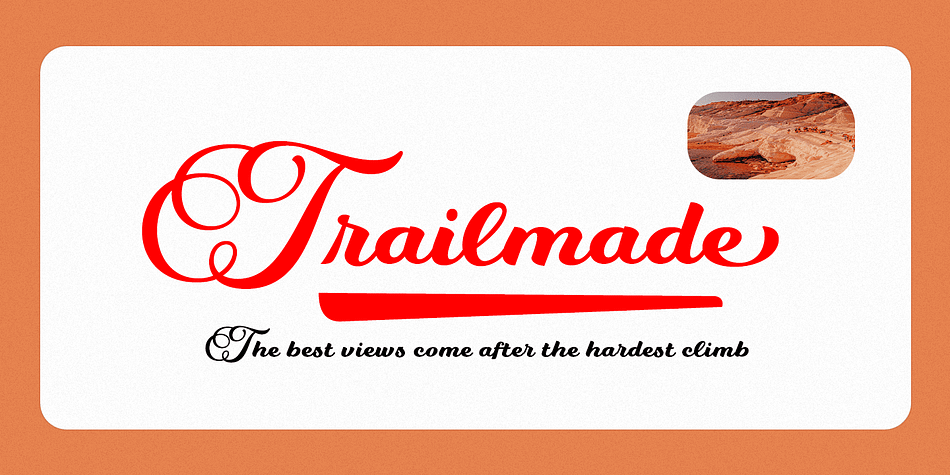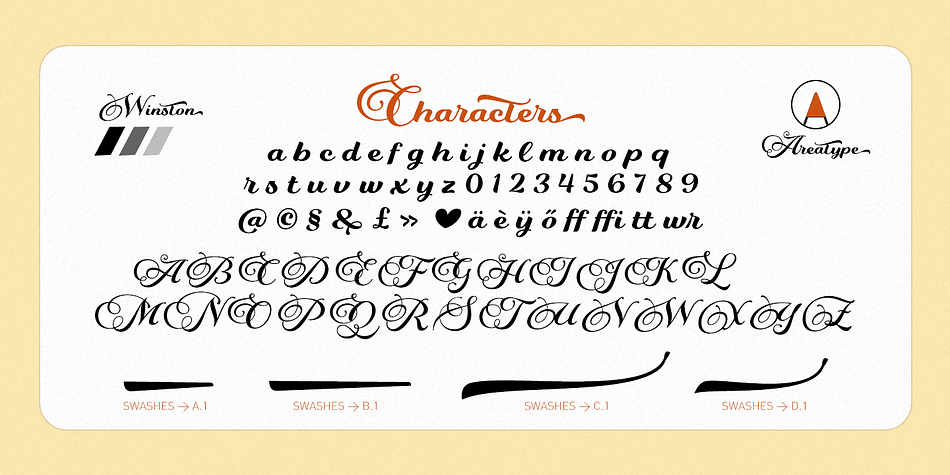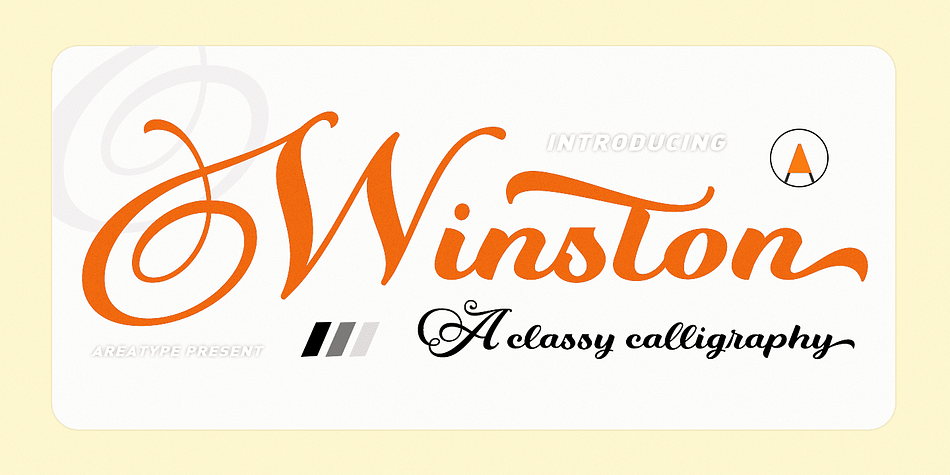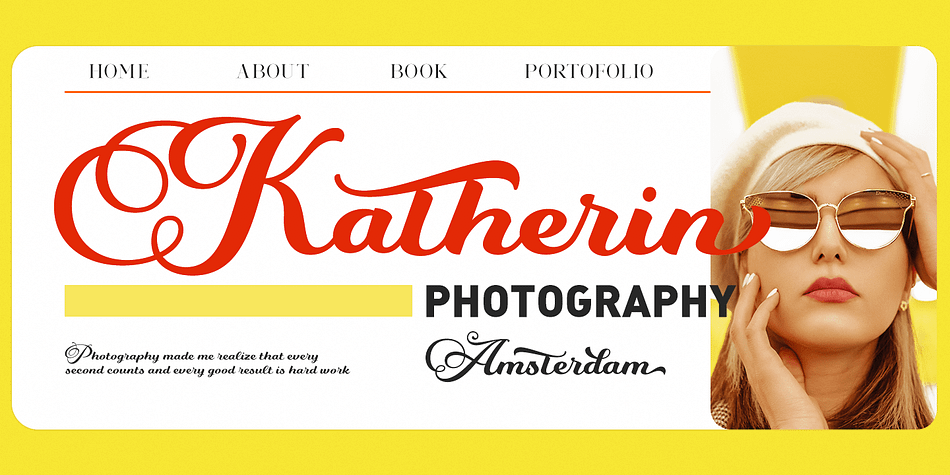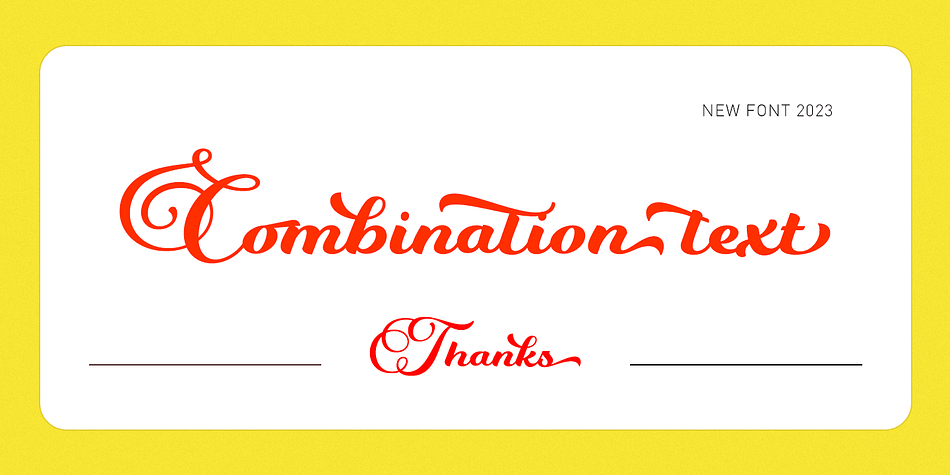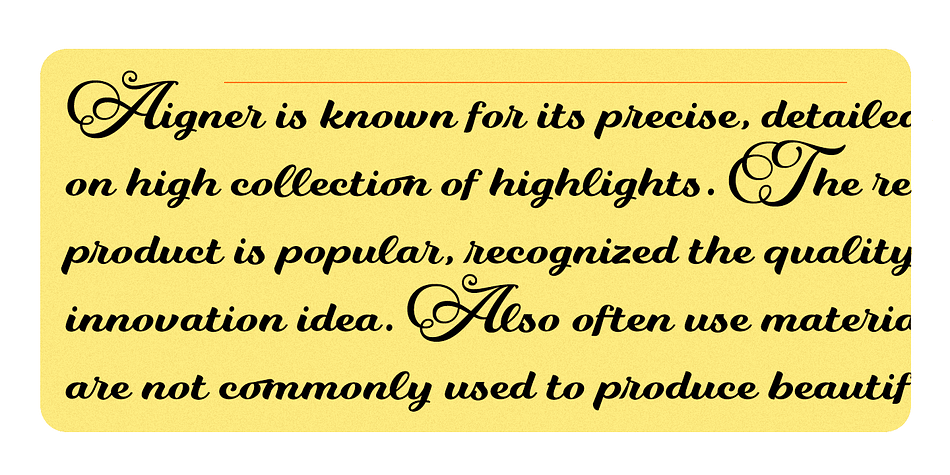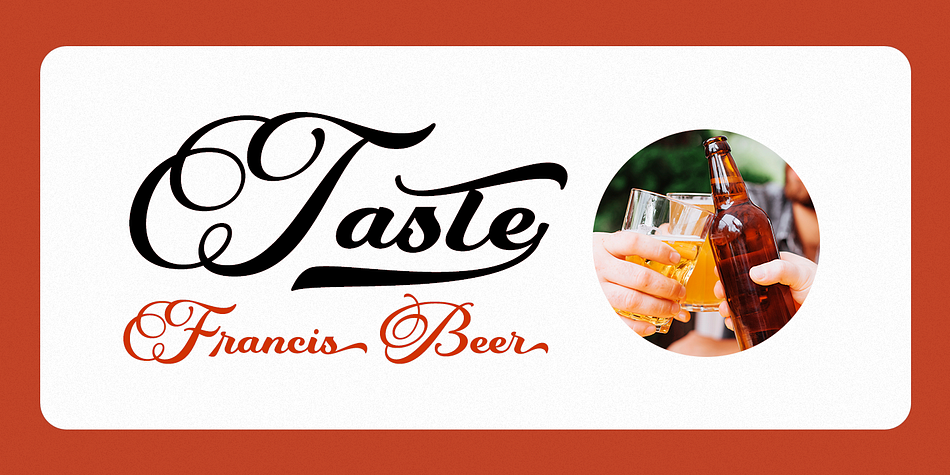
Winston
Winston is a brush script and script font family published by Area Type Studio.
Welcome to Winston classy Script font is a modern, casual and beautiful calligraphic typeface with a swash. It can be used for many purposes. such as titles, signatures, logos, wedding invitations, letterheads, nameplates, labels, newsletters, posters, badges, etc.
Winston’s classy Script Features Open type, including initial and terminal letters, alternatives, ligatures, and International support for most Western languages including